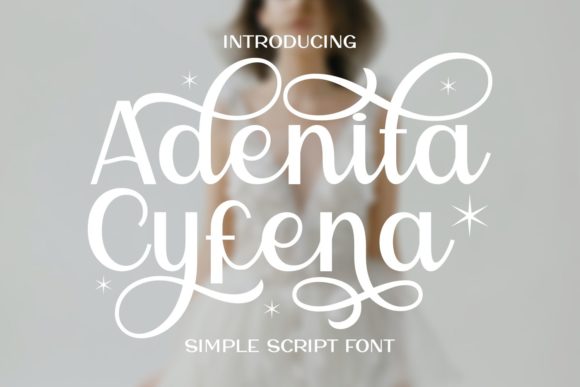
Behold Adenita Cyfena, a captivating script font that exudes elegance and charm. Each letter dances across the page, intertwining like a delicate melody, whispering tales of beauty and enchantment. Designed with the discerning eye of Rifki (7ntypes), this font commands attention, leaving a lasting impression on the beholder.
Immerse yourself in the world of Adenita Cyfena, where every word becomes a masterpiece, a visual symphony of creativity. Its graceful curves and sweeping strokes add a touch of magic to any design, making it the perfect choice for photographers seeking to elevate their logos.
With Adenita Cyfena, your photographs will transcend mere images and transform into timeless works of art. Its versatility shines in wedding invitations, capturing the essence of love and romance. Its presence graces social media posts, adding a touch of sophistication and allure.
Unlock the creative potential of Adenita Cyfena and witness your designs blossom into exquisite masterpieces. Let your imagination soar as you craft logos that radiate elegance and poise, leaving an indelible mark on the world.
Indulge in the beauty of Adenita Cyfena, a font that captivates and enchants. Embark on a creative journey where each word becomes a stroke of genius, a testament to your artistic flair. Embrace the power of this extraordinary font and make your designs shine brighter than ever before.